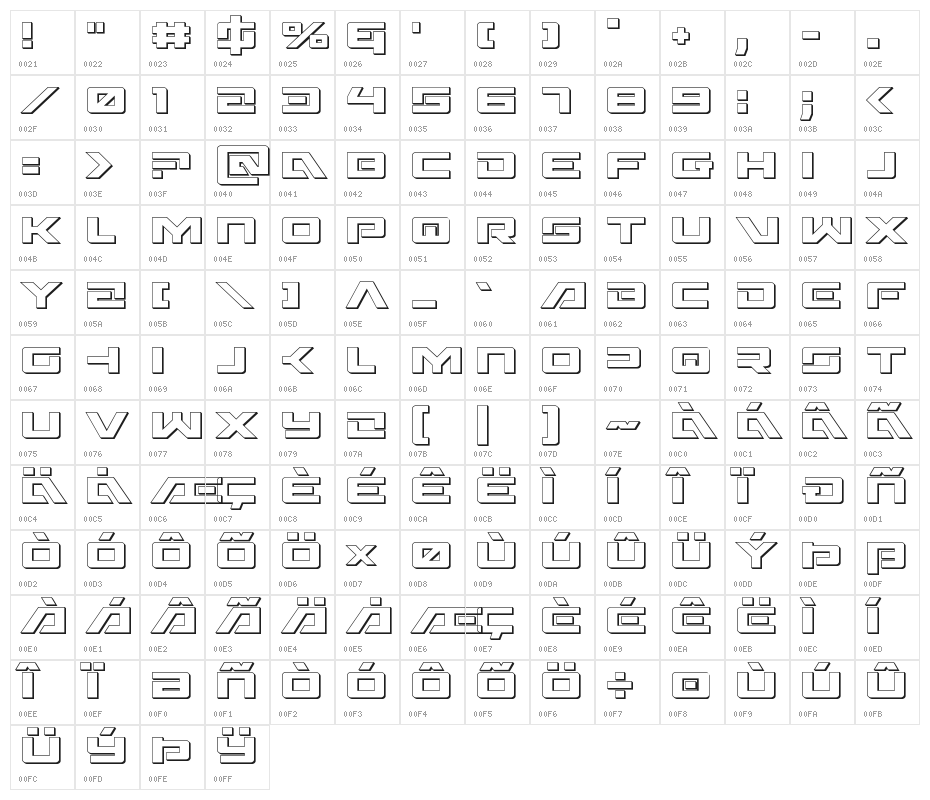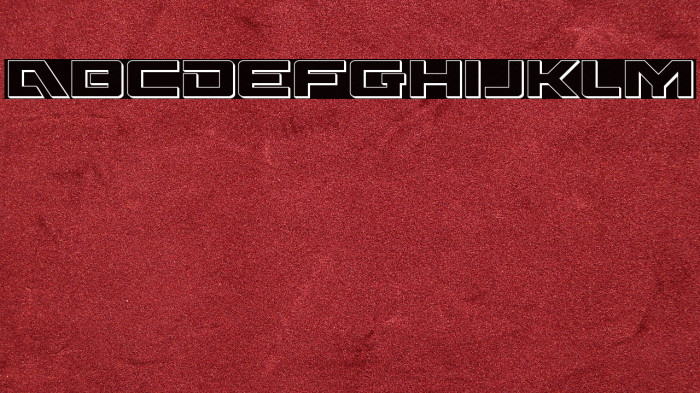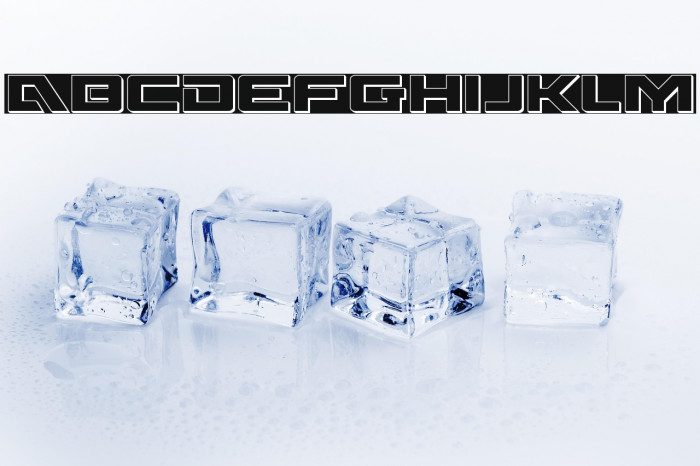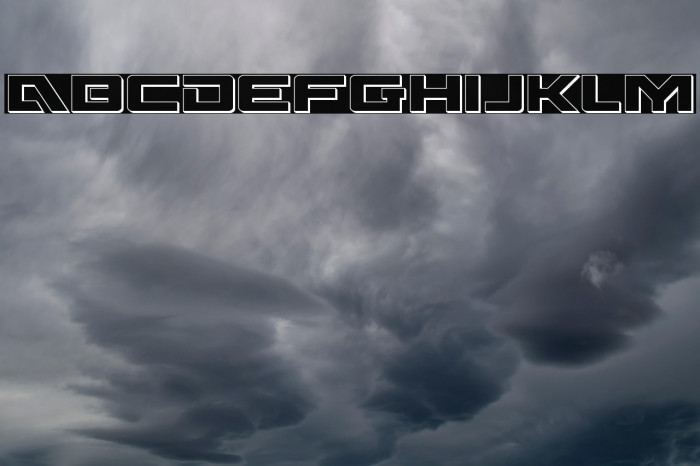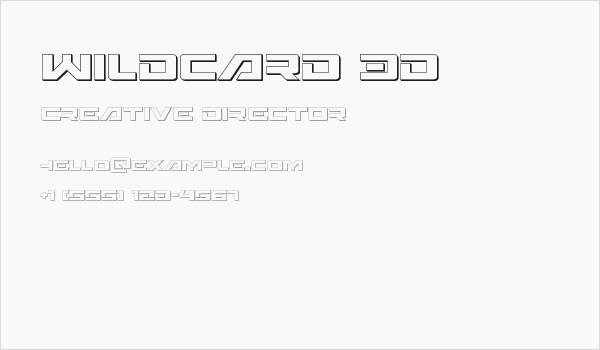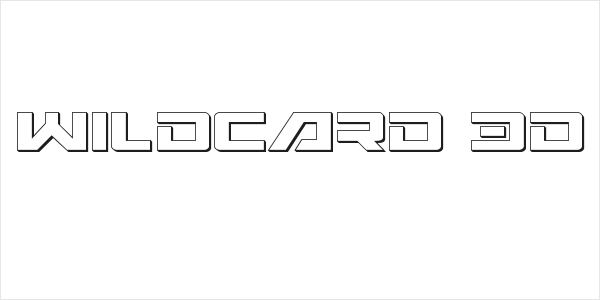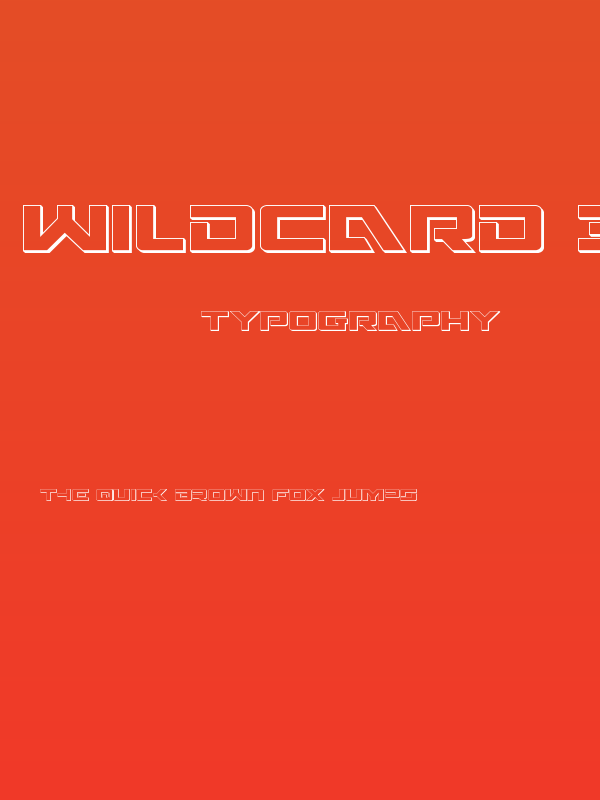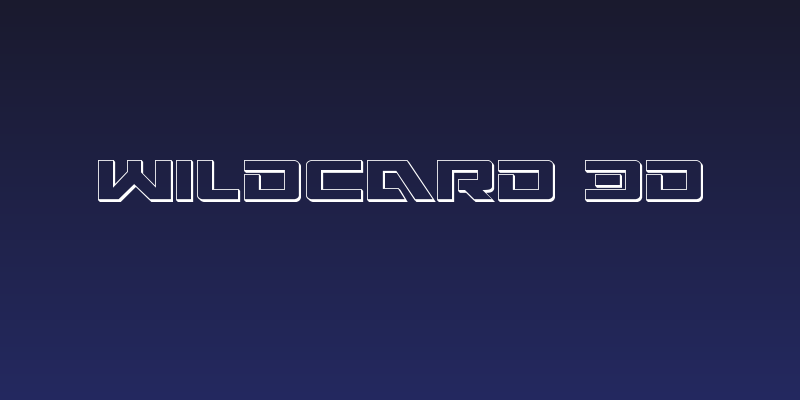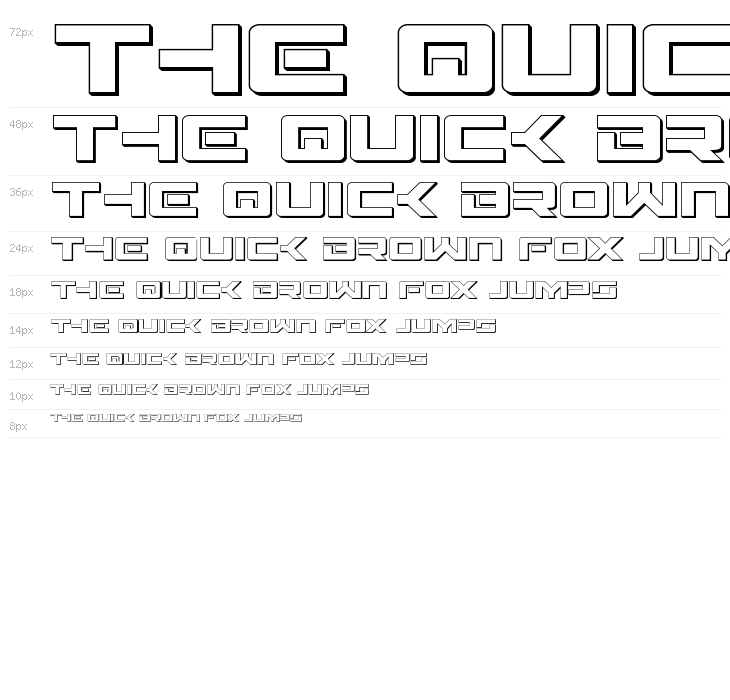
Wildcard 3D Font
Wildcard 3D Description
This font features a bold, geometric design with a three-dimensional effect. The characters are outlined, giving them a futuristic and tech-inspired appearance. The angular shapes and clean lines create a sense of precision and modernity. Each letter and number is constructed with a consistent width, contributing to a uniform and cohesive look. The special characters maintain the same aesthetic, ensuring a seamless integration with the alphanumeric set. This font is ideal for projects that require a strong visual impact and a contemporary style.